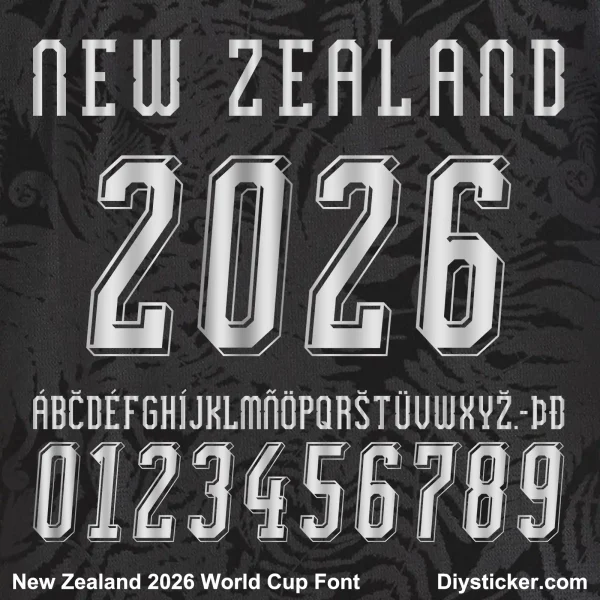
Elevate your sports design projects with the New Zealand 2026 World Cup Font. This typeface captures the modern, sharp aesthetic of the national team’s identity, featuring the unique “Silver Fern” inspired geometry. Whether you are a professional graphic designer or a DIY enthusiast using a Cricut or Silhouette machine, this kit provides everything you need.
• Full Character Set: Includes uppercase letters, numbers, and special accent characters (Á,É,Í,Ñ,Ó,Ü,Þ).